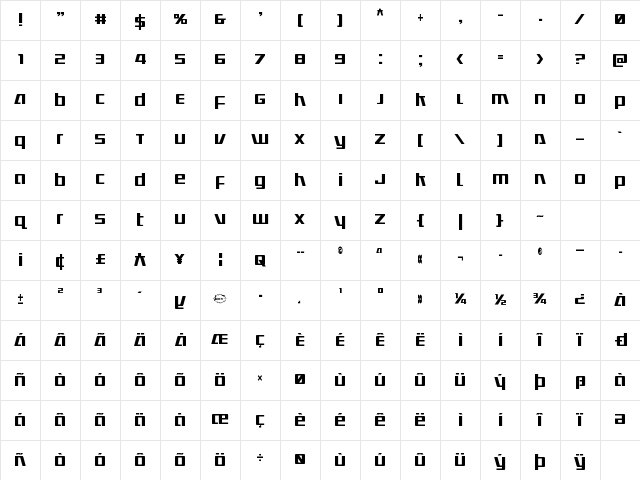
Ultramarines Condensed Condensed
Style: Condensed
Design Context for Ultramarines Condensed
Ultramarines Condensed is a composed and adaptable typeface that performs quietly and consistently across a wide range of design contexts. Its narrow stance lets it pack a punch even in space-constrained designs.